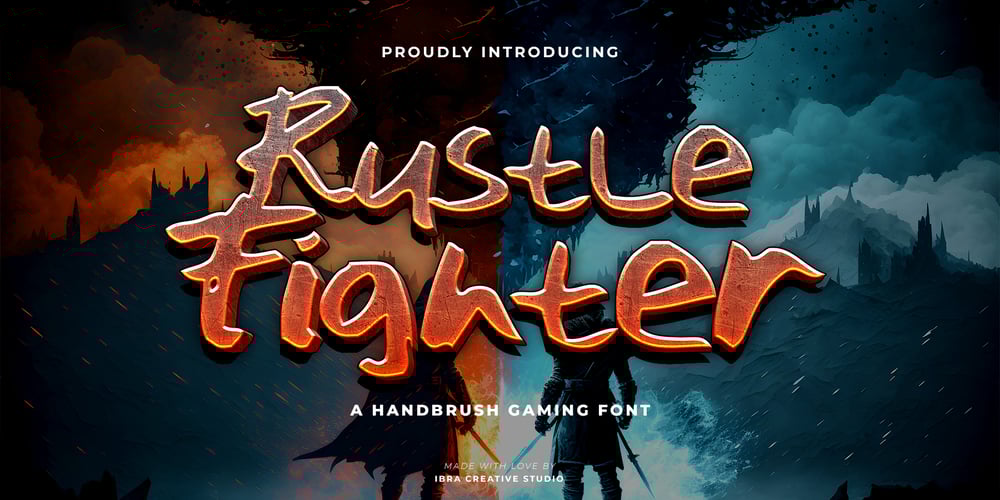
Rustle Fighter Font Family was designed by Roisatul Azizah and published by IbraCreative. Rustle Fighter contains 1 styles and family package options. Rustle Fighter – A Handbrush Gaming Typeface.Rustle Fighter is a dynamic and gaming handbrush typeface that packs a punch with its bold and commanding presence. Inspired by the untamed brushstrokes of a skilled artist, Rustle Fighter captures the raw energy and strength of handwritten text. Each letter carries an impressive weight, with its rough edges and uneven lines creating a sense of intensity and ruggedness. Whether used for headlines, logos, or bold designs, Rustle Fighter makes a powerful statement, demanding attention and leaving a lasting impression. With its versatile nature, this typeface effortlessly adds a touch of rebellion and authenticity to any project, making it a go-to choice for designers looking to inject a fierce and artistic flair into their creations.